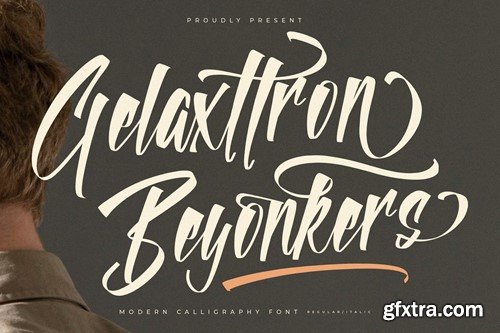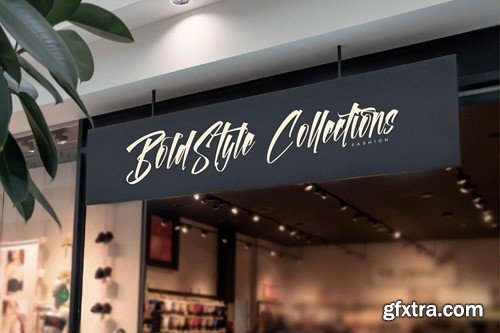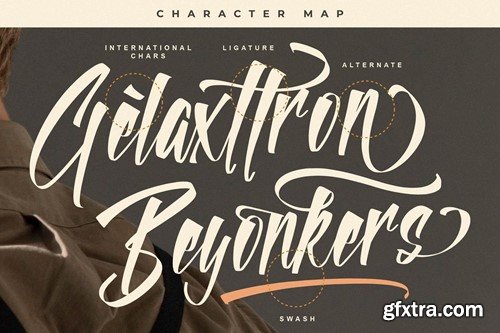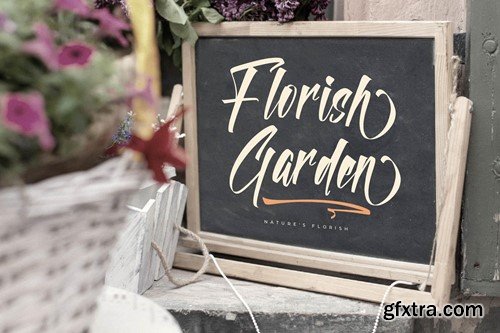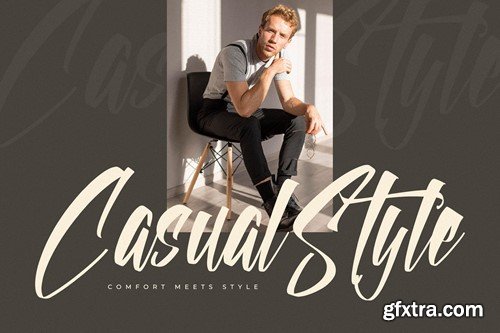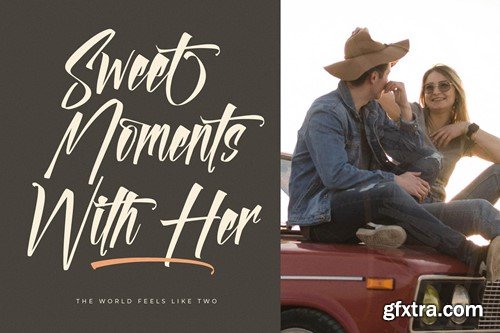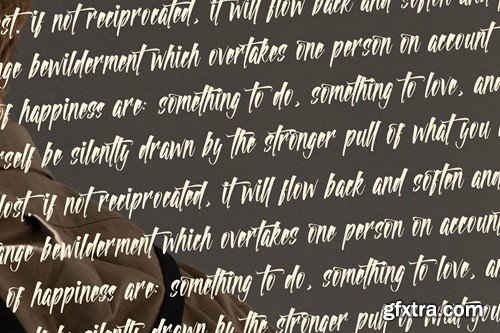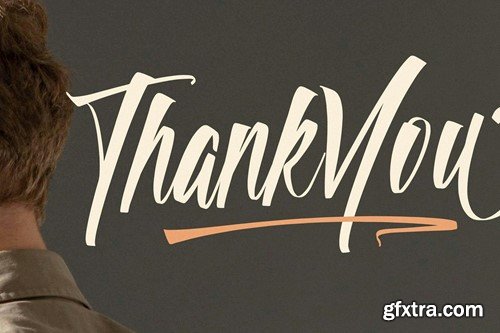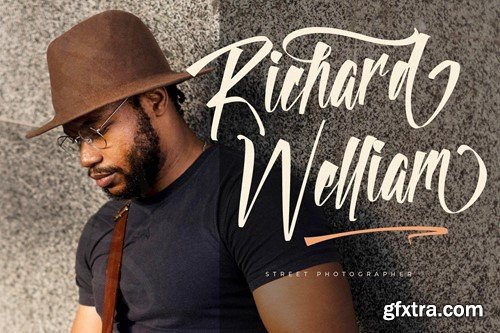
Gelaxttron Beyonkers Modern Calligraphy Font
Hi ladies & gentlemen, this is one of our fonts suitable to complement your digital and printed creative products. This font is perfect for posters, social media posts, branding, personal projects, etc.